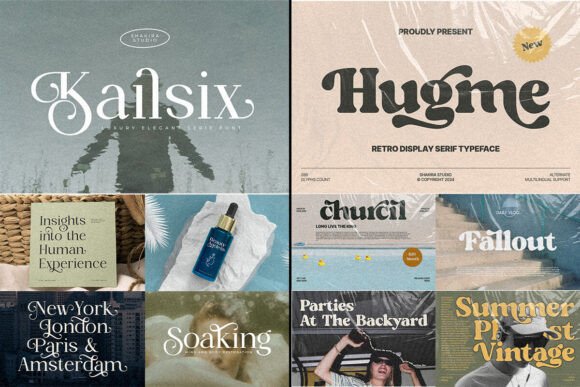
Retro Bundle Collection Font
BEST-SELLING FONTS IN THIS BUNDLE:
– Another Beauty
– Hugme
– Kailsix
– Masion Paris
– Midnight Illusion
– Mikybean
– Murph Oldtown
– Rahla
– Salty Caramel
– Seicori
– Siofeca Martis
– Tiki Tangle